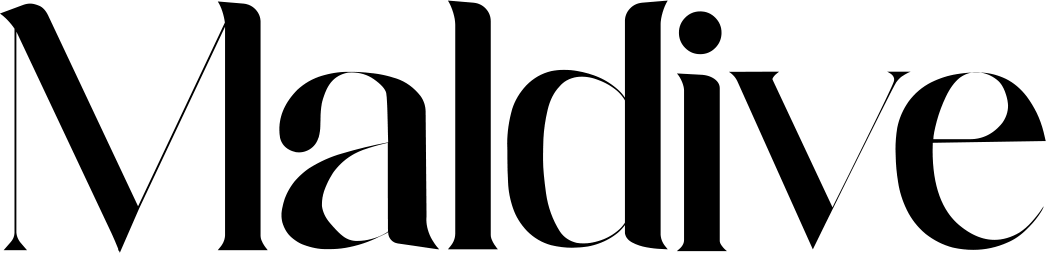
Maldive Font
Maldive is a classy serif font with thin and bold words and a powerful look. It will give a fancy and calming sense to your texts. You can use it to write fashion blog headlines, romantic movie names, cosmetic promotion…
Maldive is a classy serif font with thin and bold words and a powerful look. It will give a fancy and calming sense to your texts. You can use it to write fashion blog headlines, romantic movie names, cosmetic promotion texts, book titles, and letters. This font lacks a numeric set.